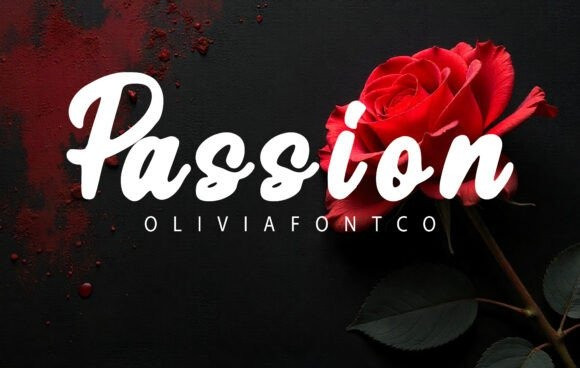
Passion Script Font
Designer: OliviaFontCo
Passion Script Font is an intense, bold, and expressive handwritten script font that conveys strong emotion and charisma. Its thick, smooth strokes and slightly bouncing baseline give it a high-impact, authentic hand-lettered quality.
This typeface is perfect for dramatic photography watermarks, romantic event posters, custom apparel, and any project that needs a strong, heartfelt, and dynamic signature style.